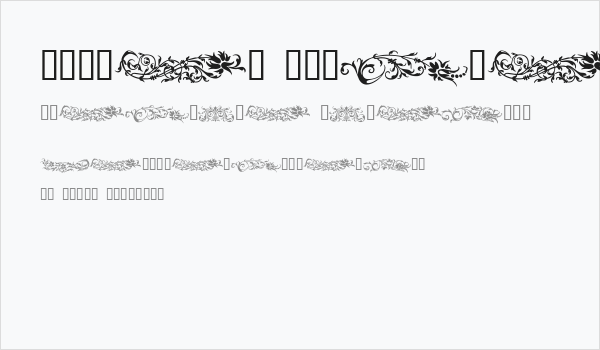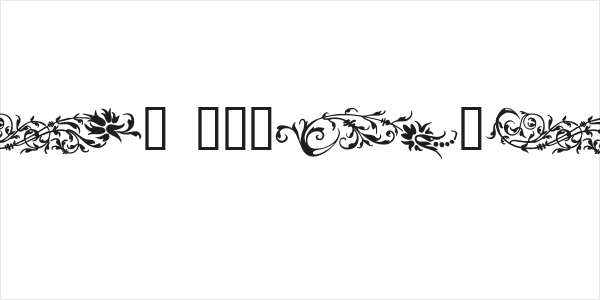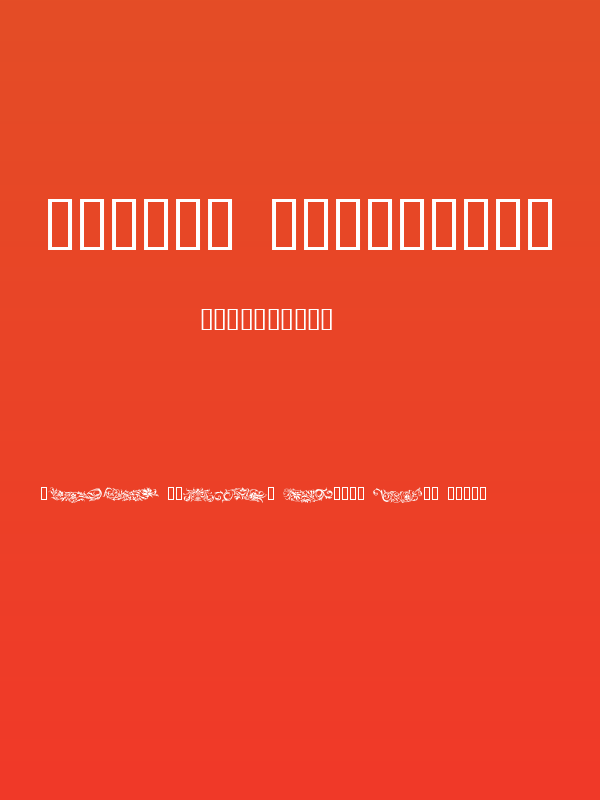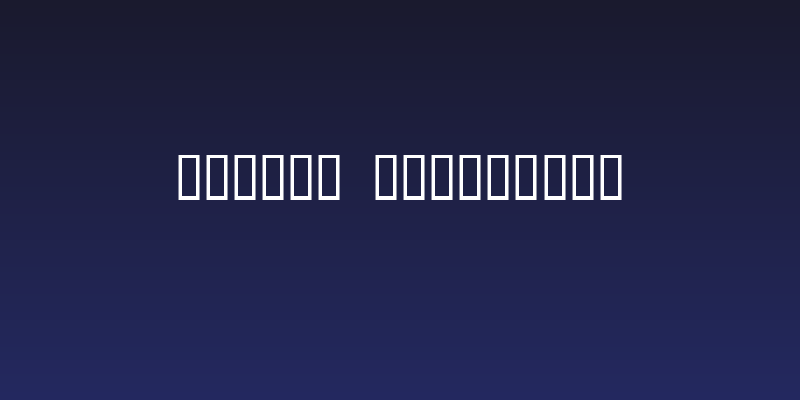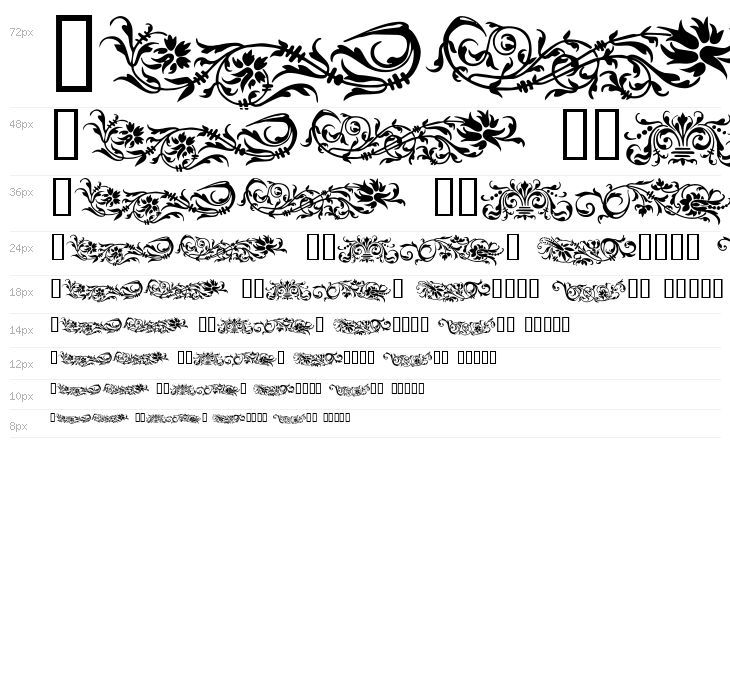
Flower Ornaments Font
Flower Ornaments Description
This is not a valid font. The image contains decorative floral ornaments instead of standard alphanumeric characters. These intricate designs are more suited for embellishments rather than textual representation. The ornate patterns feature swirling vines and floral motifs, which can be used to add an elegant touch to design projects.
| Use Case | Decorative elements, embellishments. |
| Proposed Projects | These floral ornaments can be used for decorative borders, invitations, greeting cards, or any project requiring an elegant, ornamental touch. |